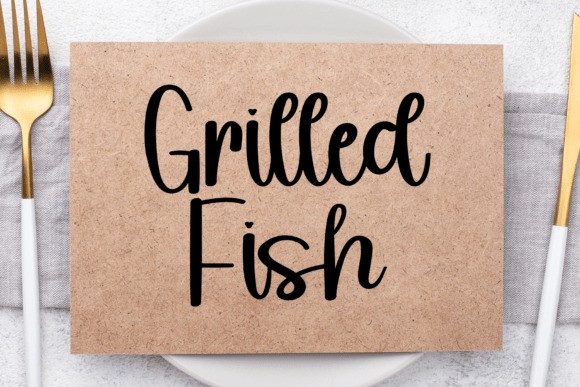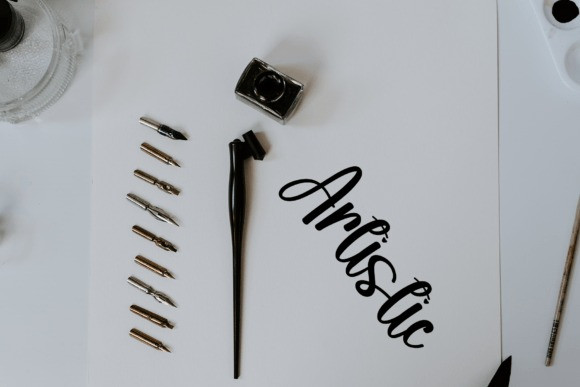
Christmas Writing Handwriting Font
Christmas Writing Handwriting Font is a sweet and beautiful handwritten font. Featuring characters that dance along the baseline, this font will add a cozy accent to any design project you wish to create!